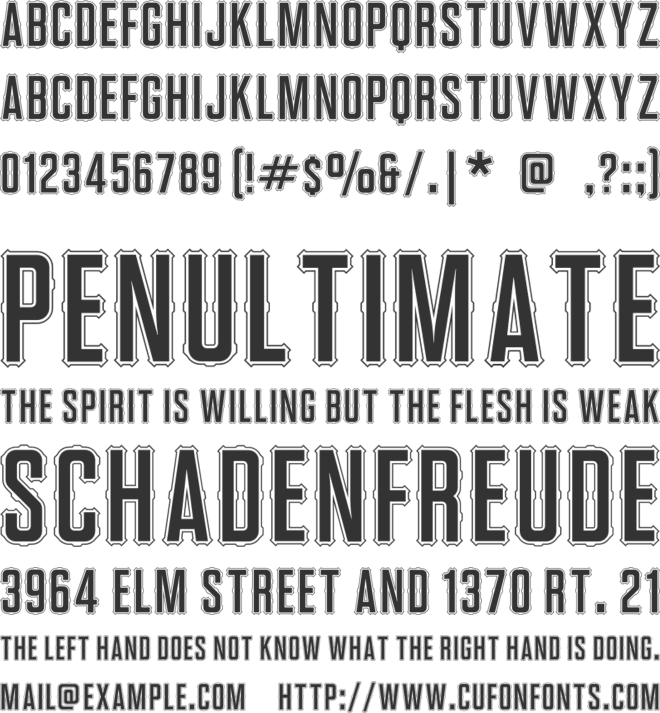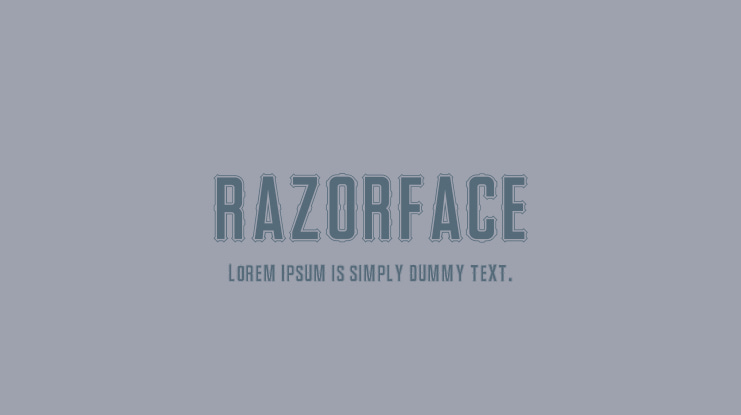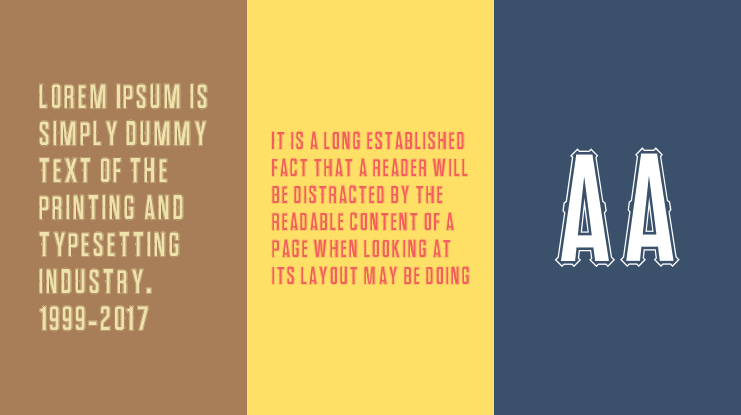
RazorFace Font
The Madman Across The Water
This is a digital revival of the typeface Scott Gothic, a photolettering font from the treasure chest of Dan X Solo.
Razor Face care of the guys who design music album artwork. Originally produced as photolettering as Scott Gothic care of Dan X Solo.